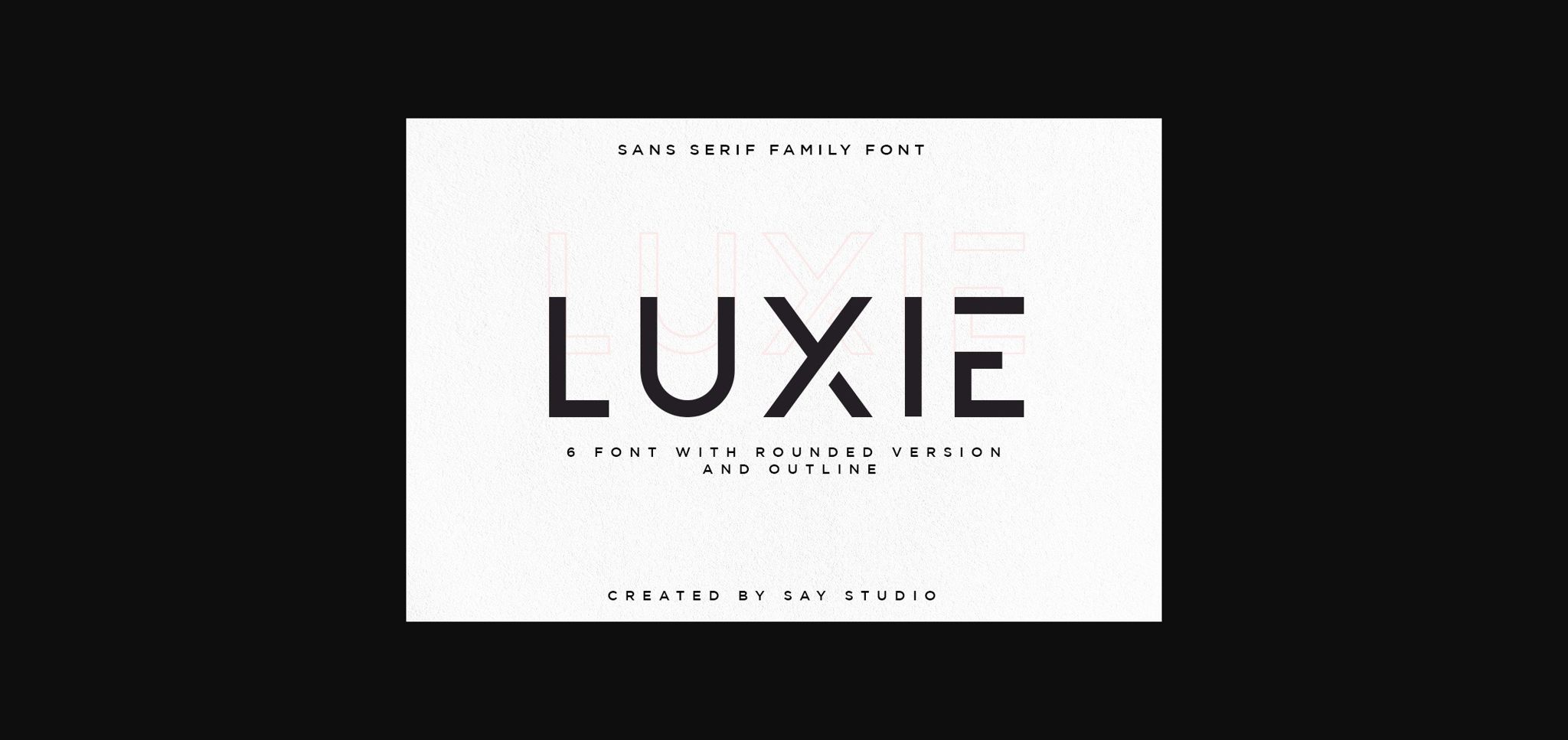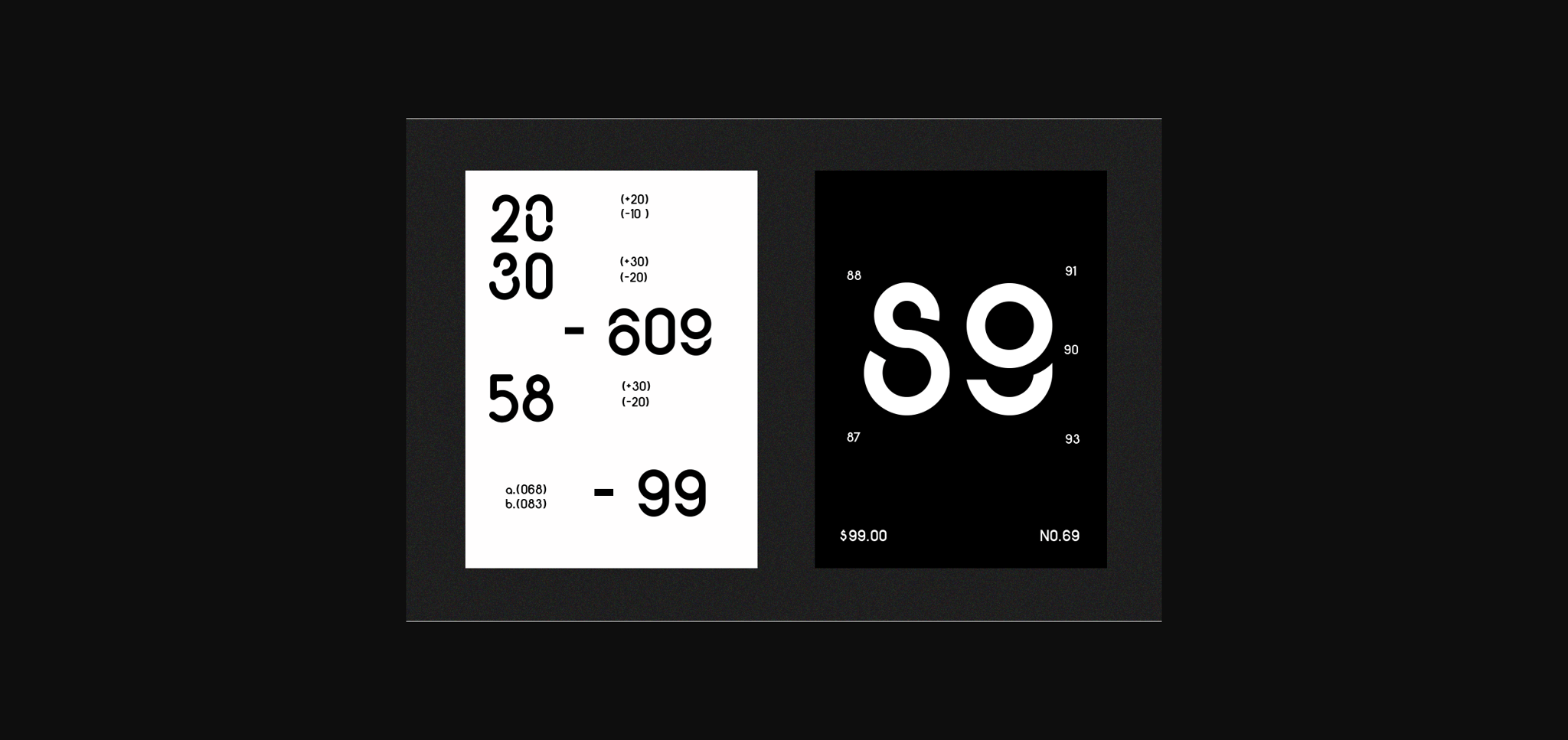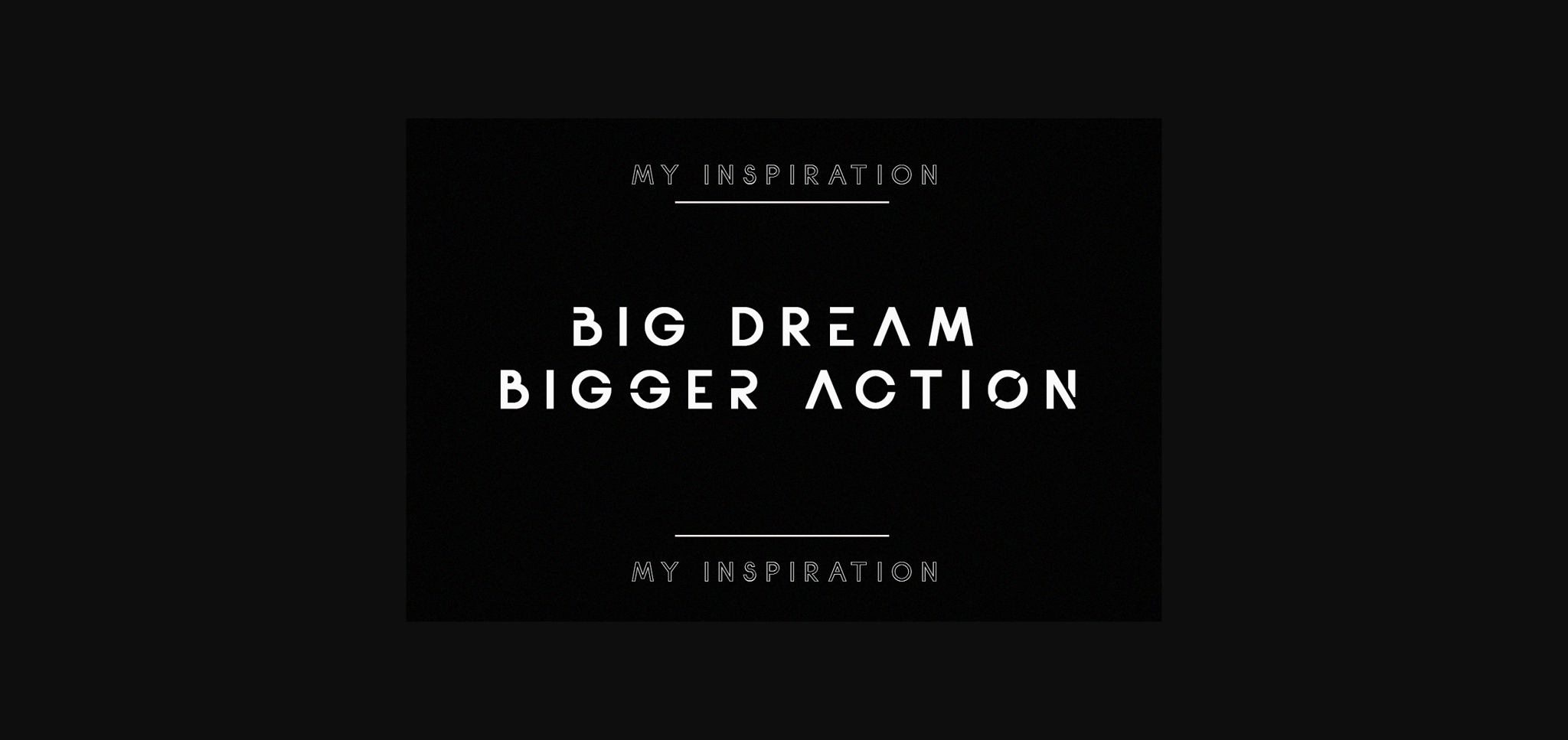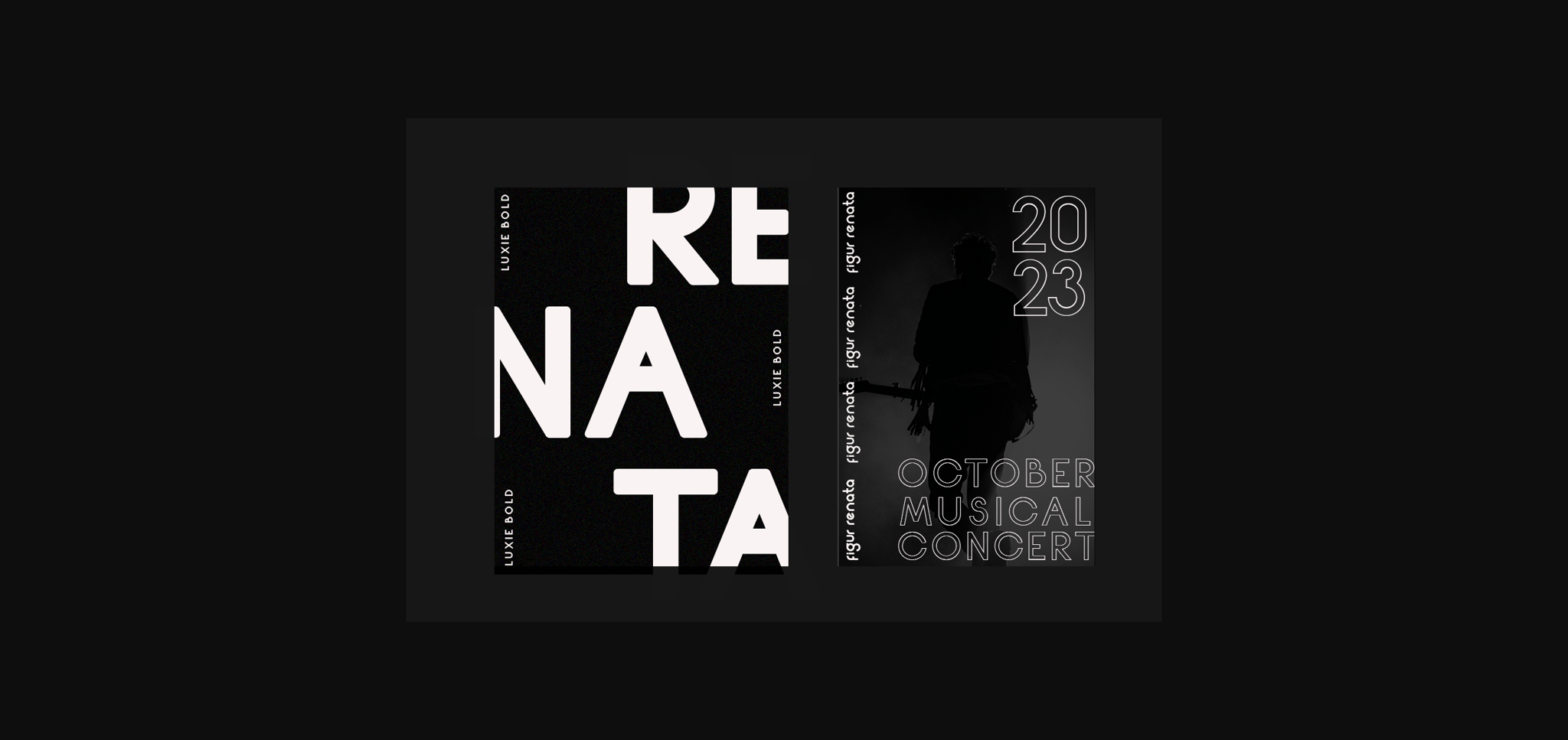
Luxie Font
About Luxie Font
Luxie is a stylish and cool sans serif font. The typeface is versatile and can be successfully used for magazines, posters, branding, websites etc.